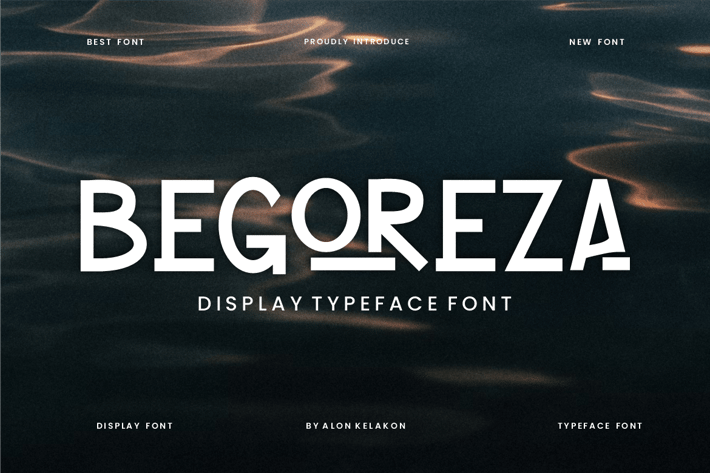
Begoreza Display Font
Begoreza Display Font Font is unique . Ready to use for your design like labeling, movie sceen, poster, movie title, gigs, album covers, logos, and much more.